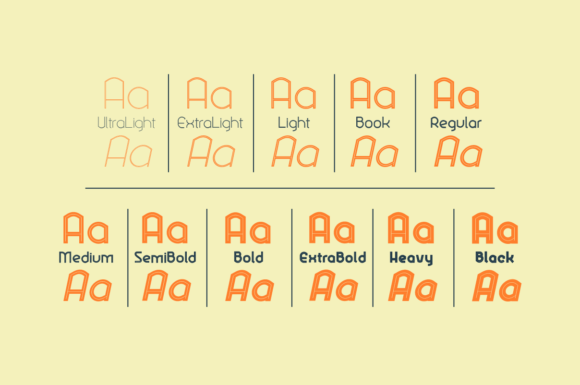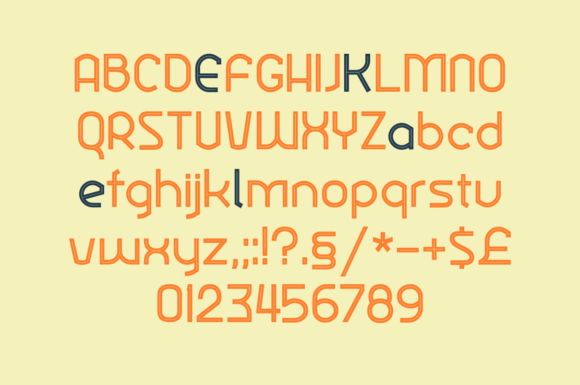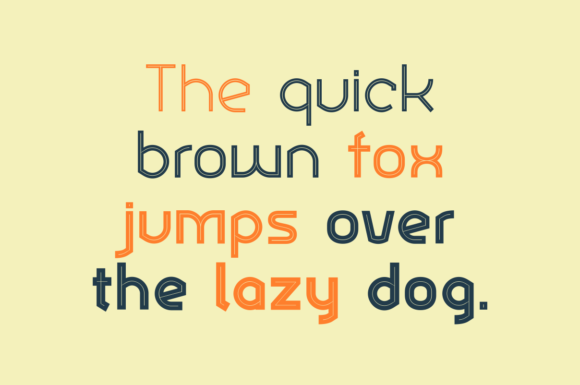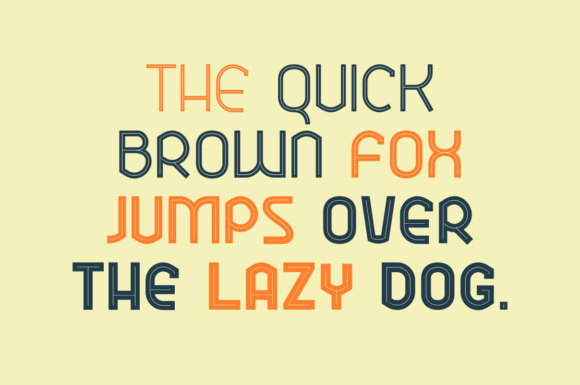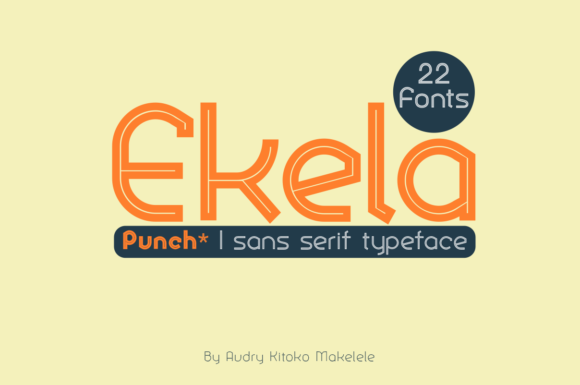
Introducing Ekela Punch Font: The Ultimate Sans Serif for Creative Projects
Are you tired of using the same old fonts for your design projects? Look no further than Ekela Punch Font, a unique and neat sans serif font that’s sure to make your creations stand out. With its clean and modern design, Ekela Punch is perfect for a wide range of projects, from crafting and digital art to branding and advertising.
What Makes Ekela Punch Font So Special?
Ekela Punch Font is a one-of-a-kind sans serif font that’s designed to be versatile and easy to use. Its unique design makes it perfect for adding a touch of personality to your projects, while its clean lines and simple shapes ensure that it remains highly legible. Whether you’re creating a logo, a brochure, or a social media graphic, Ekela Punch Font is the perfect choice.
Key Features of Ekela Punch Font
- Unique and Modern Design: Ekela Punch Font features a fresh and modern design that’s sure to grab attention.
- Highly Legible: The font’s clean lines and simple shapes make it easy to read, even at small sizes.
- Versatile: Ekela Punch Font can be used for a wide range of projects, from digital art to branding and advertising.
How to Use Ekela Punch Font in Your Projects
Ekela Punch Font is incredibly easy to use and can be incorporated into a wide range of projects. Here are a few ideas to get you started:
- Digital Art: Use Ekela Punch Font to add text to your digital art, such as illustrations, graphics, and paintings.
- Branding and Advertising: Ekela Punch Font is perfect for creating logos, brochures, and social media graphics that need to stand out.
- Crafting: Add a personal touch to your crafting projects, such as handmade cards, gift tags, and scrapbooking pages.
- Web Design: Use Ekela Punch Font to create clean and modern website headers, titles, and body text.
Tips for Getting the Most Out of Ekela Punch Font
To get the most out of Ekela Punch Font, here are a few tips to keep in mind:
- Experiment with Different Sizes: Ekela Punch Font looks great at a wide range of sizes, so don’t be afraid to experiment and find the perfect size for your project.
- Pair it with Other Fonts: Ekela Punch Font pairs well with a wide range of other fonts, so try combining it with other sans serif or script fonts to create a unique look.
- Use it for Headings and Titles: Ekela Punch Font is perfect for headings and titles, so use it to add a touch of personality to your project.
Ekela Punch Font is a unique and versatile sans serif font that’s perfect for designers and crafters looking to add a touch of personality to their projects. With its clean and modern design, high legibility, and ease of use, Ekela Punch Font is the perfect choice for a wide range of projects. So why not give it a try and see how it can make your creations stand out?
Ekela Punch Font: The Perfect Choice for Designers and Crafters
In conclusion, Ekela Punch Font is a unique and neat sans serif font that’s perfect for designers and crafters looking to add a touch of personality to their projects. Its clean and modern design, high legibility, and ease of use make it the perfect choice for a wide range of projects. So why not give it a try and see how it can make your creations stand out?